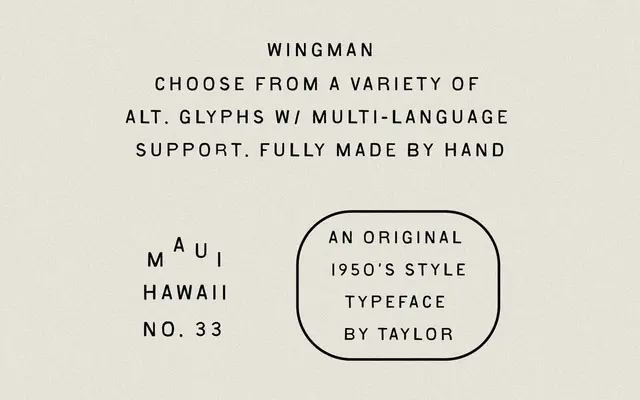
Wingman
A hand-drawn display sans inspired by 1950s poster lettering, with a slight forward lean and informal bounce suited to headlines and branding.
Part of Taylor Penton's bird-themed type family alongside Birdie and Big Bird, Wingman offers a single Regular weight with full upper and lowercase Latin. The hand-drawn construction gives it warmth and subtle irregularity at close range while reading as clean and restrained from a distance. Best used in headlines, packaging and brand work where an approachable retro feel is wanted without committing to full period pastiche.
A hand-drawn sans-serif with an informal lean and bounce, inspired by 1950s poster lettering. Classified as display due to its expressive, illustrative character suited to headlines and branding rather than continuous text.